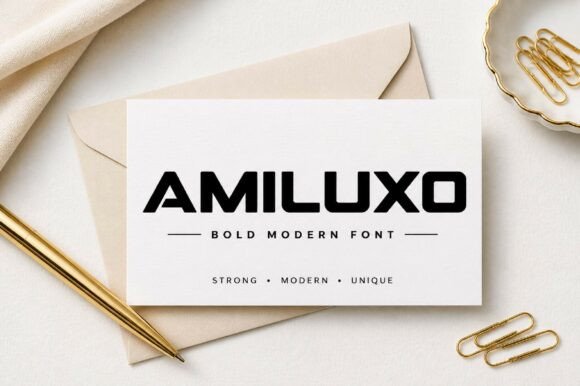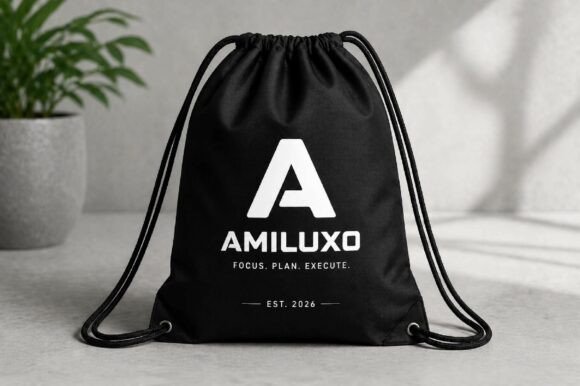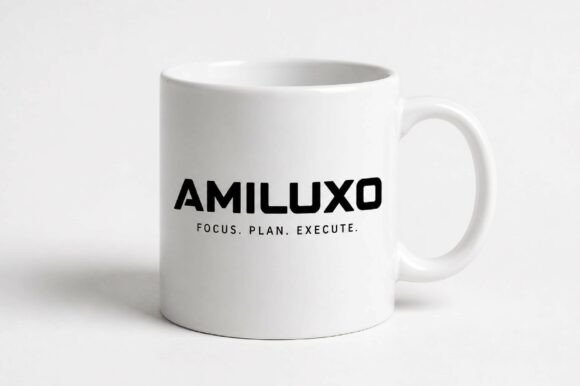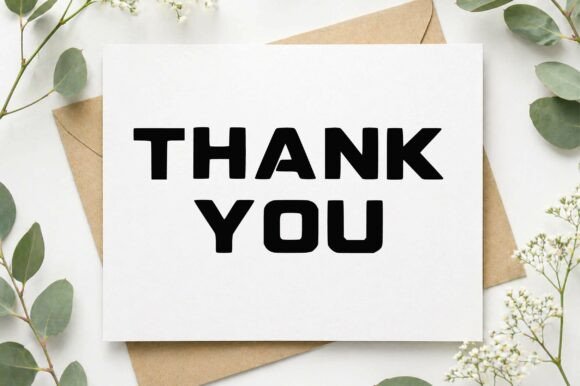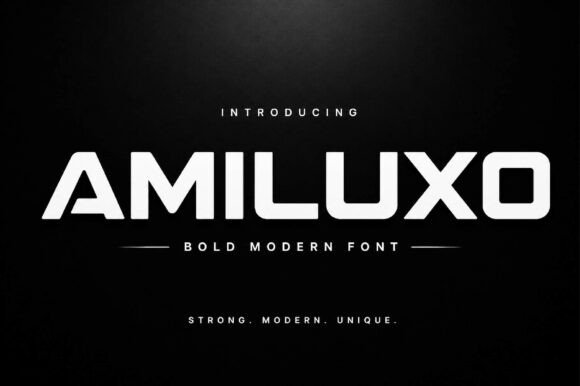
Introducing Amiluxo Font: The Ultimate Modern Sans Serif for Bold Designs
In the world of typography, fonts play a crucial role in conveying messages, expressing creativity, and making a lasting impression. For designers and crafters, finding the perfect font that embodies modernity, boldness, and professionalism can be a daunting task. However, look no further than Amiluxo Font, a game-changing sans serif font that is revolutionizing the design industry.
What is Amiluxo Font?
Amiluxo is a bold and modern sans serif font that boasts a strong geometric structure and clean lines. Its sleek design delivers a powerful and professional look, making it perfect for modern design needs. This font is ideal for a wide range of applications, including branding, logos, posters, headlines, social media graphics, and creative projects that require a bold and confident style.
Key Features of Amiluxo Font
- Geometric Structure: Amiluxo’s geometric structure gives it a modern and edgy feel, making it perfect for designs that require a bold statement.
- Clean Lines: The font’s clean lines ensure that it remains legible and easy to read, even at smaller font sizes.
- Bold and Confident: Amiluxo exudes confidence and boldness, making it ideal for designs that require a strong and assertive look.
- Professional Look: The font’s sleek design and geometric structure give it a professional look that is perfect for corporate branding and designs.
Why Choose Amiluxo Font?
With so many fonts available in the market, why choose Amiluxo Font? Here are a few reasons why Amiluxo stands out from the rest:
- Versatility: Amiluxo is a versatile font that can be used for a wide range of design projects, from branding and logos to posters and social media graphics.
- Uniqueness: Amiluxo’s geometric structure and clean lines give it a unique look that sets it apart from other sans serif fonts.
- Legibility: The font’s clean lines and simple design ensure that it remains legible even at smaller font sizes.
- Modernity: Amiluxo is a modern font that is perfect for designs that require a fresh and contemporary look.
How to Use Amiluxo Font?
Amiluxo Font is easy to use and can be incorporated into a variety of design projects. Here are a few ways to use Amiluxo:
- Branding: Use Amiluxo as a logo font or as a typography font for your brand’s marketing materials.
- Posters: Amiluxo is perfect for poster designs that require a bold and attention-grabbing headline.
- Social Media Graphics: Use Amiluxo to create eye-catching social media graphics that stand out from the crowd.
- Logos: Amiluxo is ideal for logo designs that require a bold and modern look.
Tips for Pairing Amiluxo Font with Other Fonts
Pairing Amiluxo Font with other fonts can create a unique and visually appealing design. Here are a few tips for pairing Amiluxo with other fonts:
- Pair with Serif Fonts: Pair Amiluxo with serif fonts to create a contrasting look that adds visual interest to your design.
- Pair with Script Fonts: Pairing Amiluxo with script fonts can create a beautiful and elegant look that is perfect for designs that require a touch of sophistication.
- Use as a Headline Font: Use Amiluxo as a headline font and pair it with a simpler font for the body text.
In conclusion, Amiluxo Font is a bold and modern sans serif font that is perfect for designers and crafters who require a professional and confident look. Its geometric structure, clean lines, and bold design make it ideal for a wide range of design projects, from branding and logos to posters and social media graphics. With its versatility, uniqueness, and legibility, Amiluxo Font is a must-have font for any designer or crafter looking to create stunning designs.